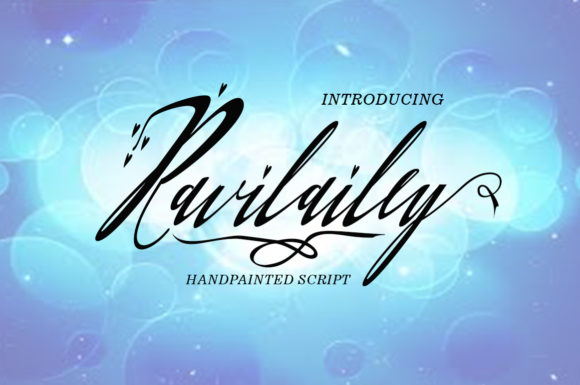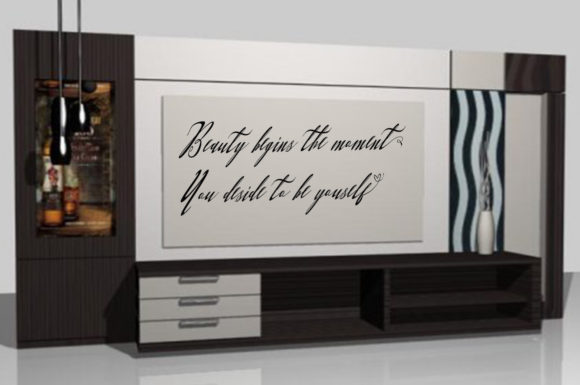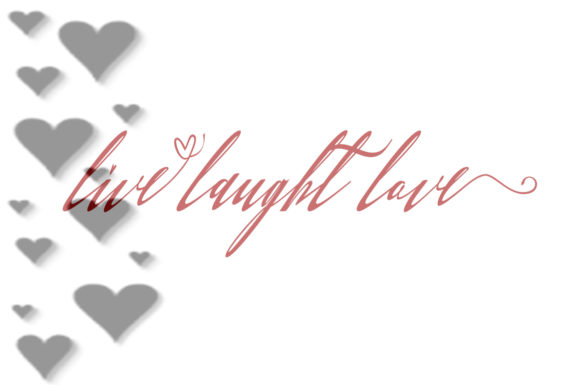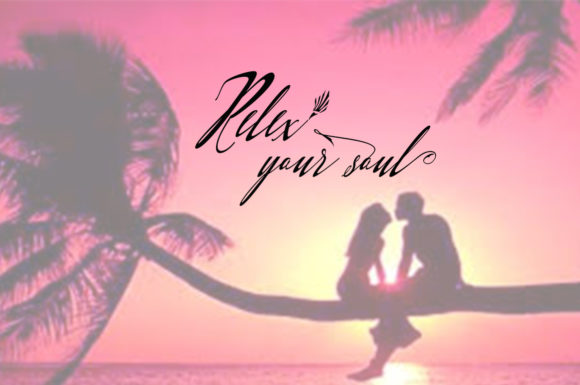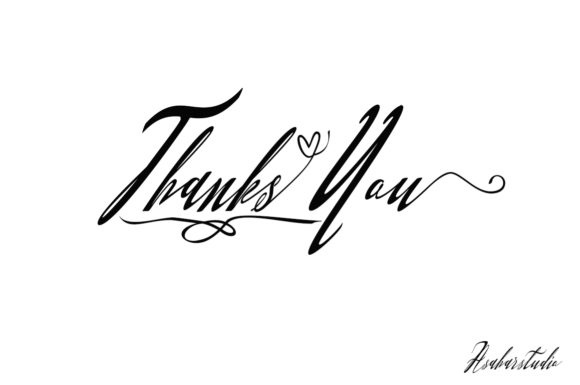
Ravilailey Font
About Ravilailey Font
The Ravilailey is an elegant hand painted typeface. It’s combining a modern look with a feminine calligraphy writing style.